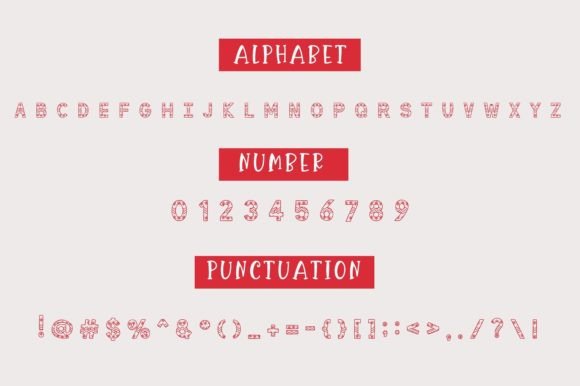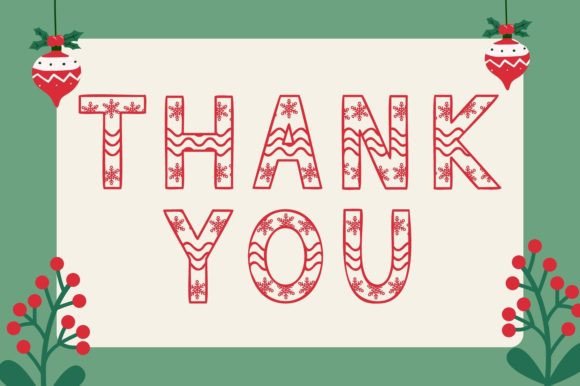
The Magic of Funny Snowflake Font: A Designer’s Delight
Ah, the joy of searching for the perfect font for a project! I still remember the time I was working on a Christmas-themed design for a client, and I just couldn’t find the right font to match the playful and festive vibe I was going for. That’s when I stumbled upon the Funny Snowflake font, and it instantly became my go-to choice. In this article, I’ll share my experience with this adorable font, its features, and how to make the most of it in your designs.
An Honest Review of Funny Snowflake Font
- ✨ Cute and Playful: This font embodies the spirit of Christmas with its whimsical and fun design.
- ✅ Highly Versatile: Whether you’re working on a blog post, logo, branding, ad, invitation, greeting card, or planner, Funny Snowflake font fits right in.
- 🎉 Easy to Read: Despite its playful nature, the font remains clear and readable, even at smaller sizes.
Now, no font is perfect, and Funny Snowflake has a few minor quirks:
- 🤔 Limited Use Outside of Christmas Context: While the font is amazing for Christmas-themed projects, it might not be the best fit for designs unrelated to the holiday season.
- ⚠️ Some Letters May Appear Similar: As with any decorative font, some letters might look similar, which can be a minor issue if you’re aiming for a very specific design.
One of the best things about Funny Snowflake font is its support for OpenType features. This means you can access a range of glyphs and stylistic alternates to add more variety to your text. For example, you can use:
- Ligatures: Combine letters for a more artistic look.
- Swashes: Add flair with decorative strokes.
- Stylistic Sets: Change the look of your text with different styles.
The Backstory of Funny Snowflake Font
Legend has it that Funny Snowflake font was created by a designer who wanted to capture the magic of a snowy day. Inspired by the uniqueness of each snowflake, the designer crafted a font that would bring joy and playfulness to any project. And so, Funny Snowflake was born!
| Font Name | Funny Snowflake Font |
| Author | Brown Cupple Fonts |